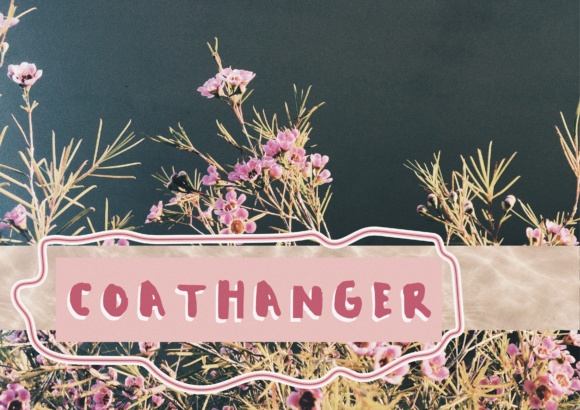
Coat Hanger Font
About Coat Hanger Font
Coat hanger is a messy, hand-written font that resembles a thick marker. Coat hanger is unique and has different marker strokes.